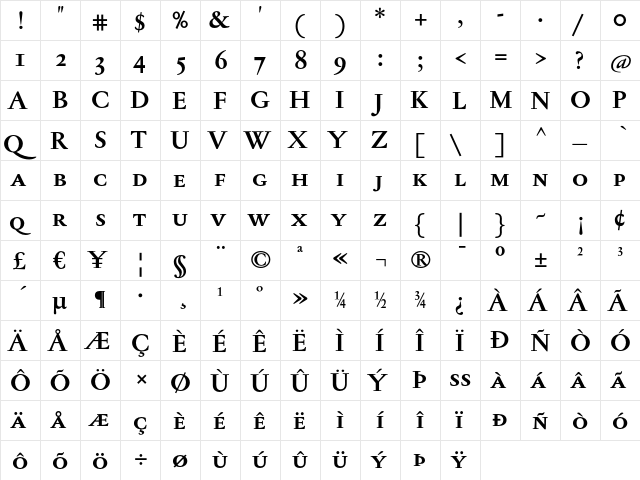
Jannon Text Med SC Bold
| Foundry | Frantisek Storm, stormtype.com |
Design Context for Jannon Text Med SC Typeface
Jannon Text Med SC offers clean, dependable letterforms without strong stylistic allegiance, making it a practical choice for designers who need flexibility. The heavy weight commands attention and anchors typographic hierarchies.